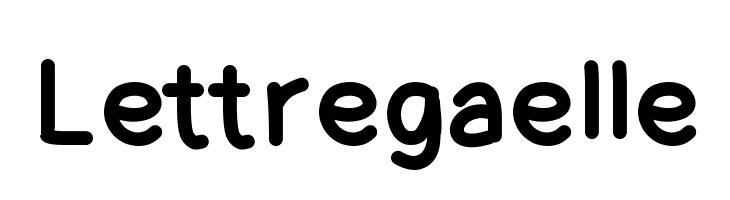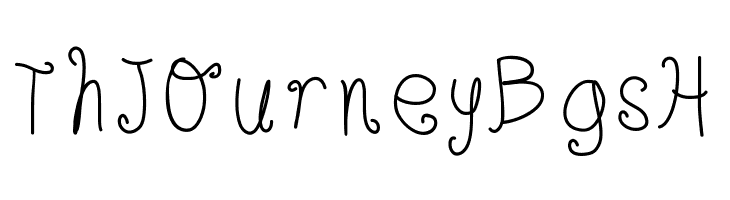
A bold, distressed, and condensed italic font with a rugged military style.
A bold, cursive script with a hand-drawn, textured appearance.
A vintage typewriter-inspired font with a monospaced, mechanical look.
A decorative font featuring ornate and intricate uppercase 'K' designs.
A playful, handwritten font with smooth curves and a casual, dynamic style.
Playful and bold font with rounded edges.
A dynamic handwritten font with fluid, cursive letterforms and varying stroke widths.